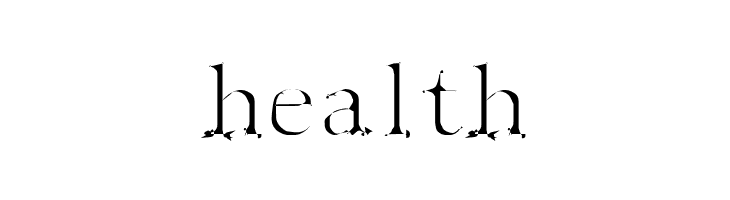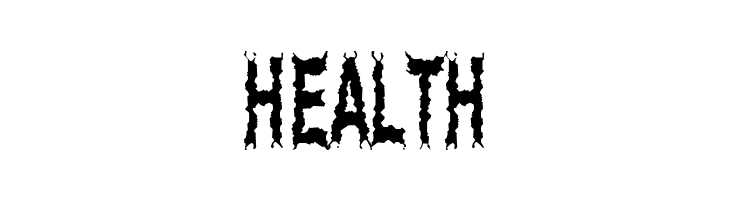
( Fonts by Fabrika De Typos - Marcio Hirosse - fabrikadetypos.blogspot.com )
A bold, distressed font with a grunge, industrial aesthetic.
( Fonts by Sinister Visions - Chad Savage - www.sinisterfonts.com )
A bold, jagged font with a horror and gothic theme.
( Fonts by Steve Ferrera )
A spooky, jagged font ideal for Halloween or eerie themes.
( Fonts by Mr Fisk - Mike Larsson - fontorama.net )
A decorative, distressed font with jagged, graffiti-like uppercase letters.
( Fonts by www.misprintedtype.com )
A bold, distressed font with a grungy, textured appearance.
( Fonts by www.misprintedtype.com )
A bold, distressed font with a grungy, textured appearance.
( Fonts by TarmSaft Font Factory - http://www.aska.nu/tarmsaft/ )
A bold, distressed font with a fragmented, graffiti-like appearance.
( Fonts by Ben Nathan )
A bold, distressed font with a grunge texture and rugged appearance.
( Fonts by Barry Bujol - theoriginal19.blogspot.com )
A distressed, grunge-style font with a textured, urban appearance.
( Fonts by Pi Luo Chiu - thisisallenchiu.tumblr.com )
A bold, distressed font with a grungy, cracked texture and jagged edges.
( Fonts by Andrew Hart - dirt2.com )
A distressed, grunge-style font with a weathered, eroded appearance.
A gritty, distressed blackletter-style font with a gothic, urban aesthetic.
A bold, distressed font with a corroded, textured appearance.
A bold, distressed font with a grunge, weathered appearance.
( Fonts by David Kerkhoff - www.hanodedphotography.com )
A bold, distressed font with a rugged, grunge aesthetic.
A bold, distressed font with a rugged, weathered appearance.
A bold, distressed font with an organic, rugged texture.
( Fonts by Steve Cloutier - www.cloutierfontes.ca )
A bold, distressed font with a rugged, grunge aesthetic.
( Fonts by Steve Cloutier - www.cloutierfontes.ca )
A bold, distressed font with a grunge, post-apocalyptic style.